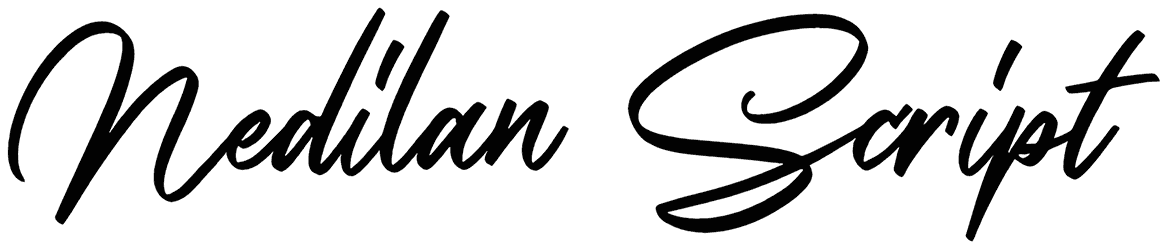
Nedilan Script Font
You must fill the gaps between your creative ideas and the audience by utilizing a lovely script font such as Nedilan Script in your logos, branding, social media posts, or editorial projects. This calligraphy font comes with elongated and rounded characters, thus it can lead to a vibe of dynamic, friendliness, or drama.
We strongly advise you not to pay attention to the lack of good readability and make the best outcomes out of this masterpiece.